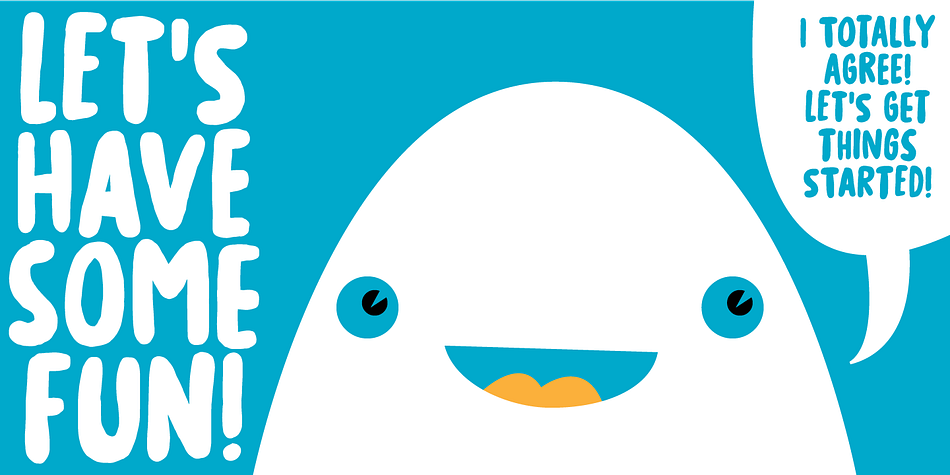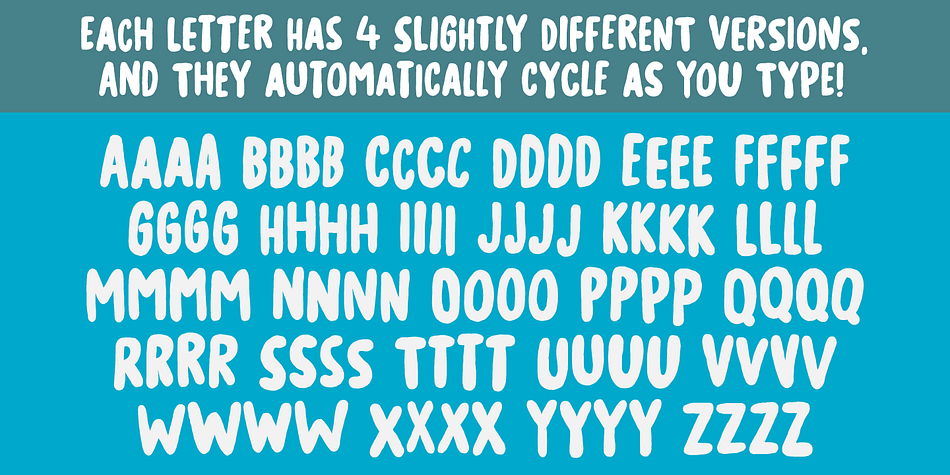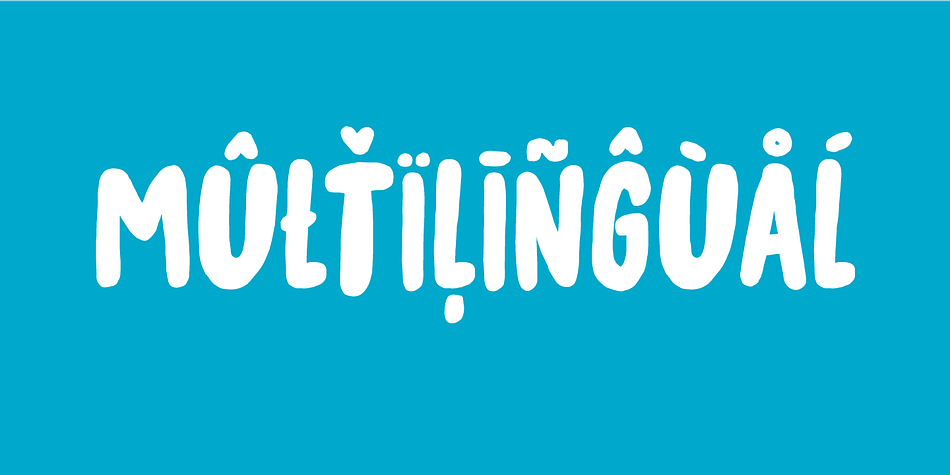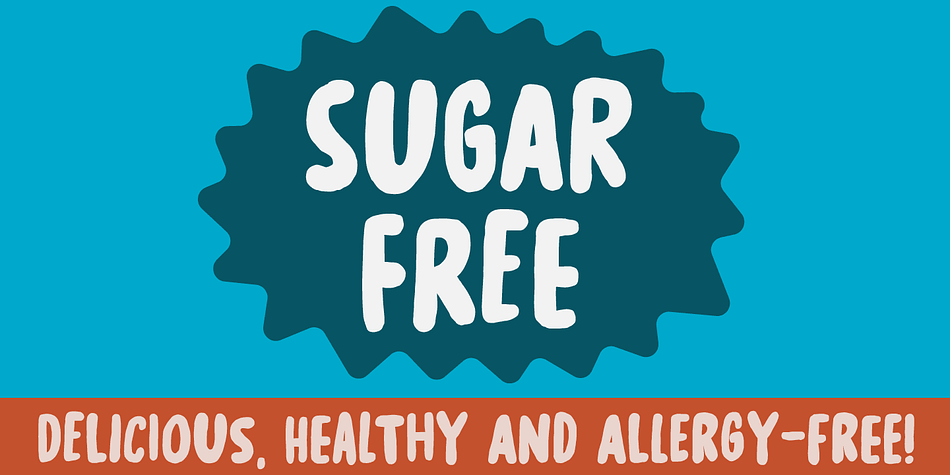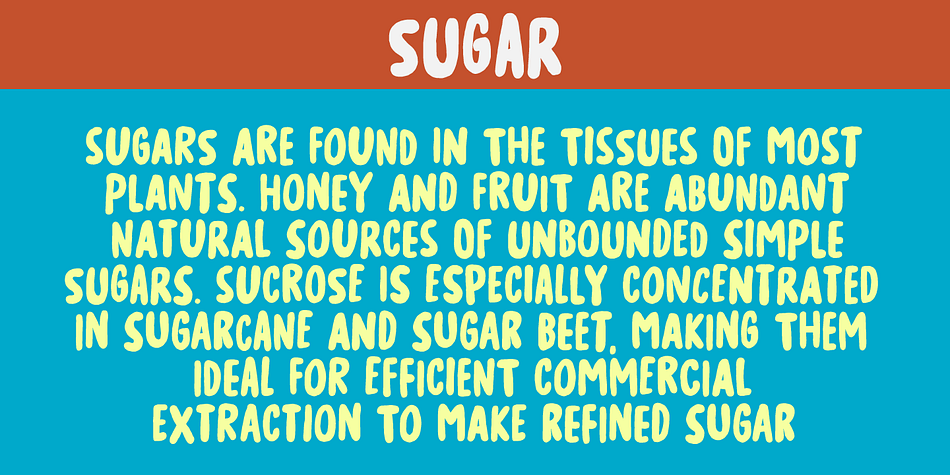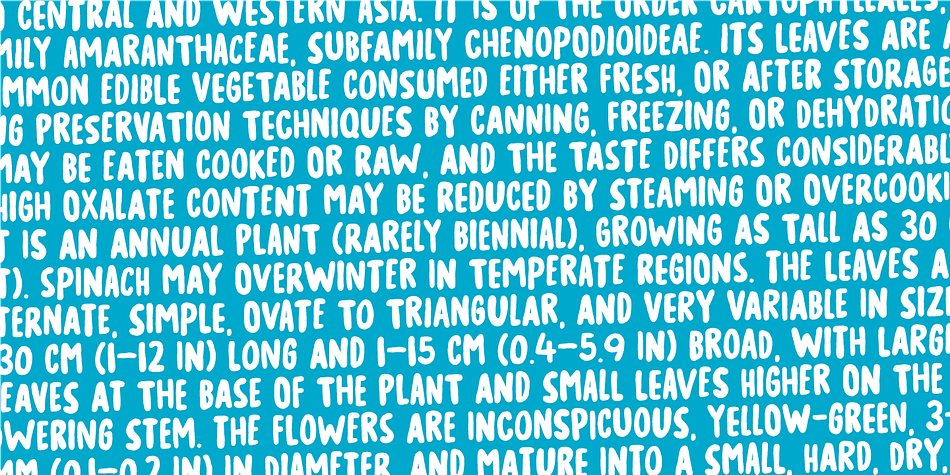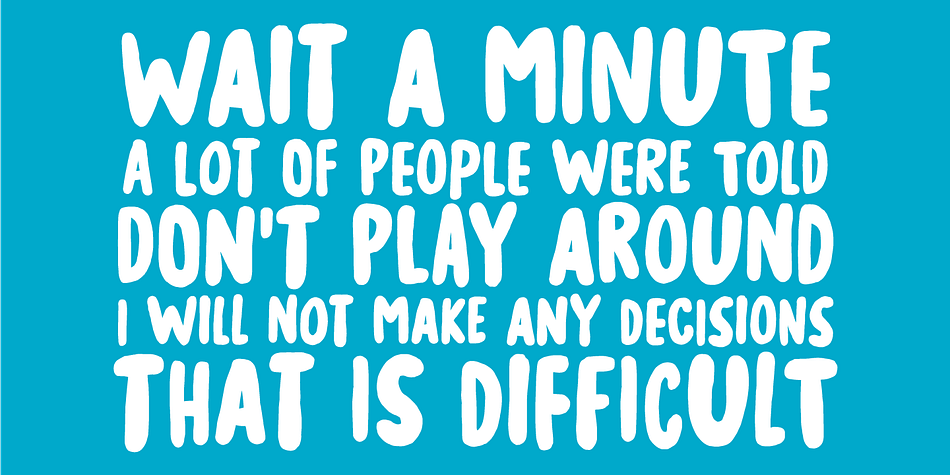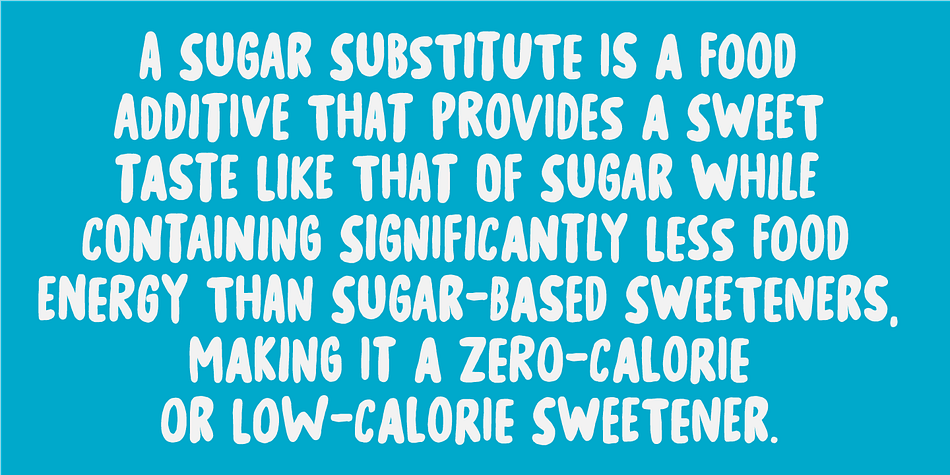
Designed by Jakob Fischer, Sugar Free is a hand display font family. This typeface has two styles and was published by Pizzadude.dk.
Don’t be afraid to taste something sugar free - most times you will be surprised how good it tastes!
My Sugar Free font may not look as very much at first glance - but play around with the Regular and Italic versions (and notice the 4 different versions of each letter, that automatically cycles as you type!) and you will see how lively the font is!